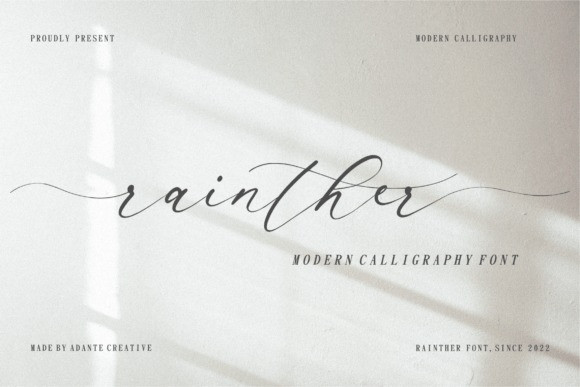
Rainther Font
Rainther Script Font, a beauty modern calligraphy font by Adante.Creative
Rainther is perfect for product packaging, branding project, megazine, social media, wedding, or just used to express words above the background.